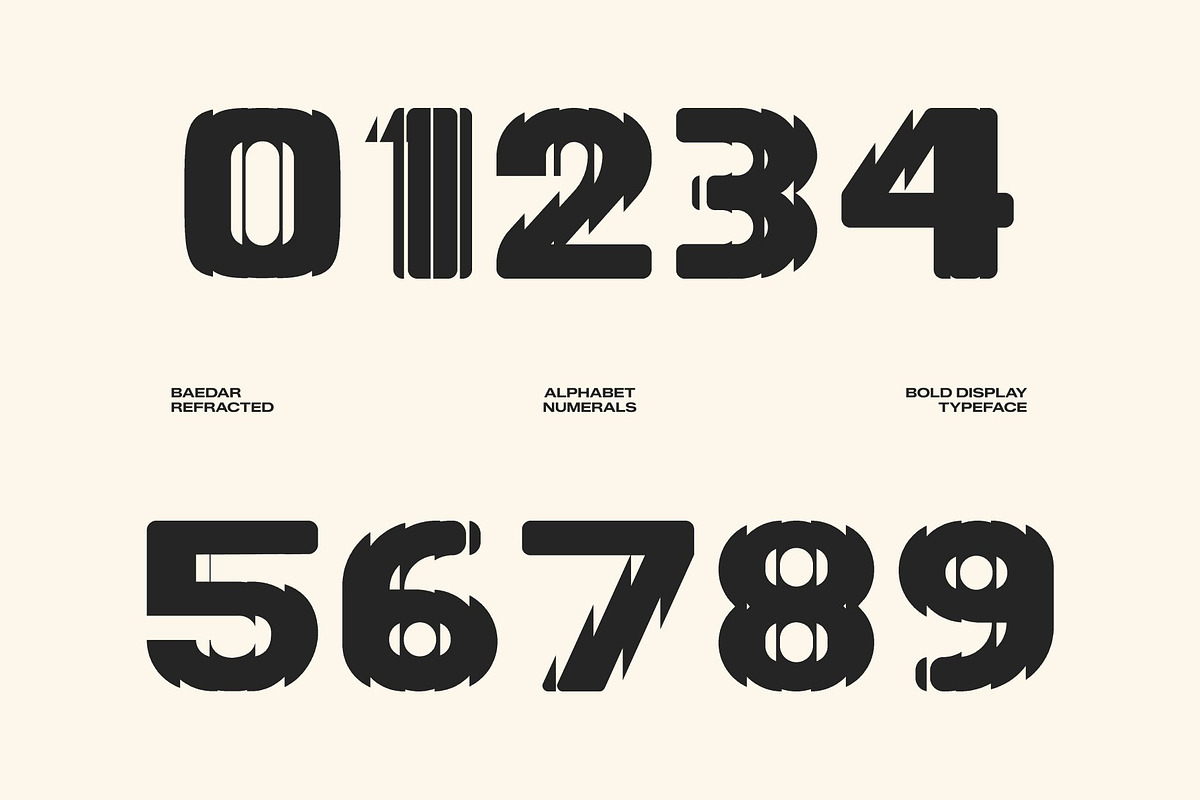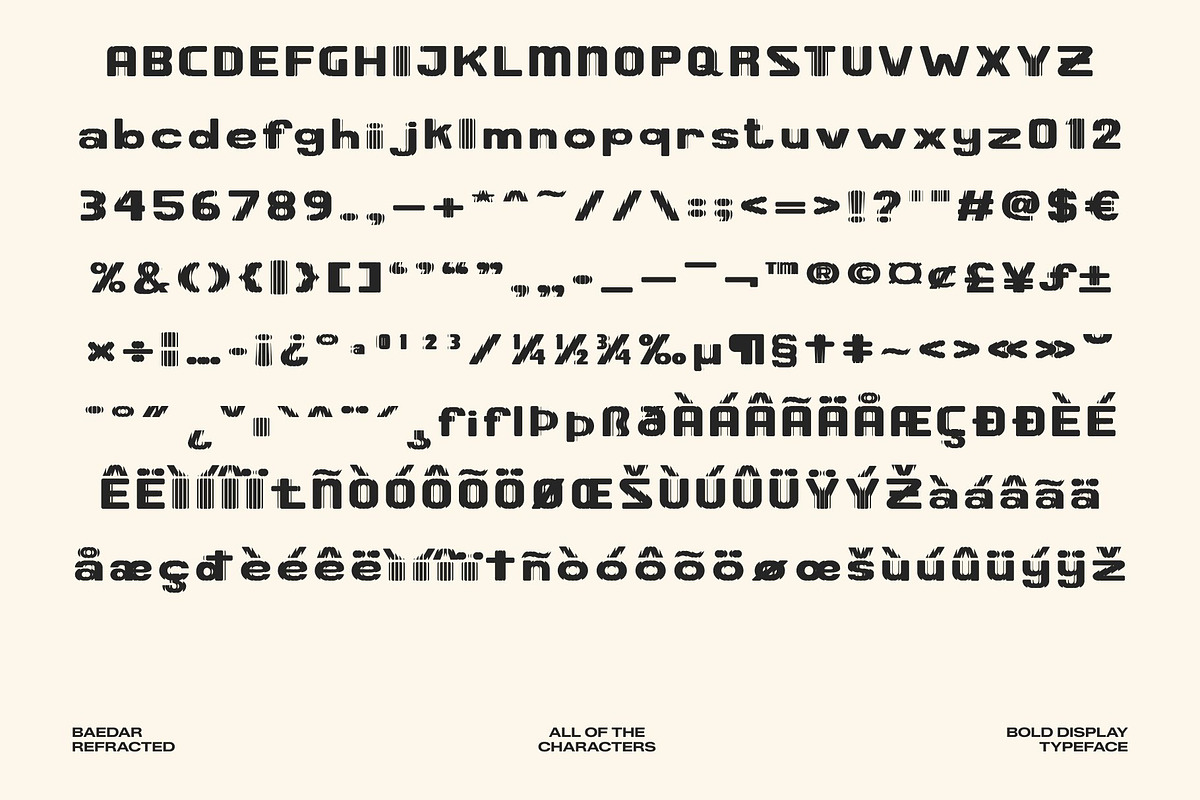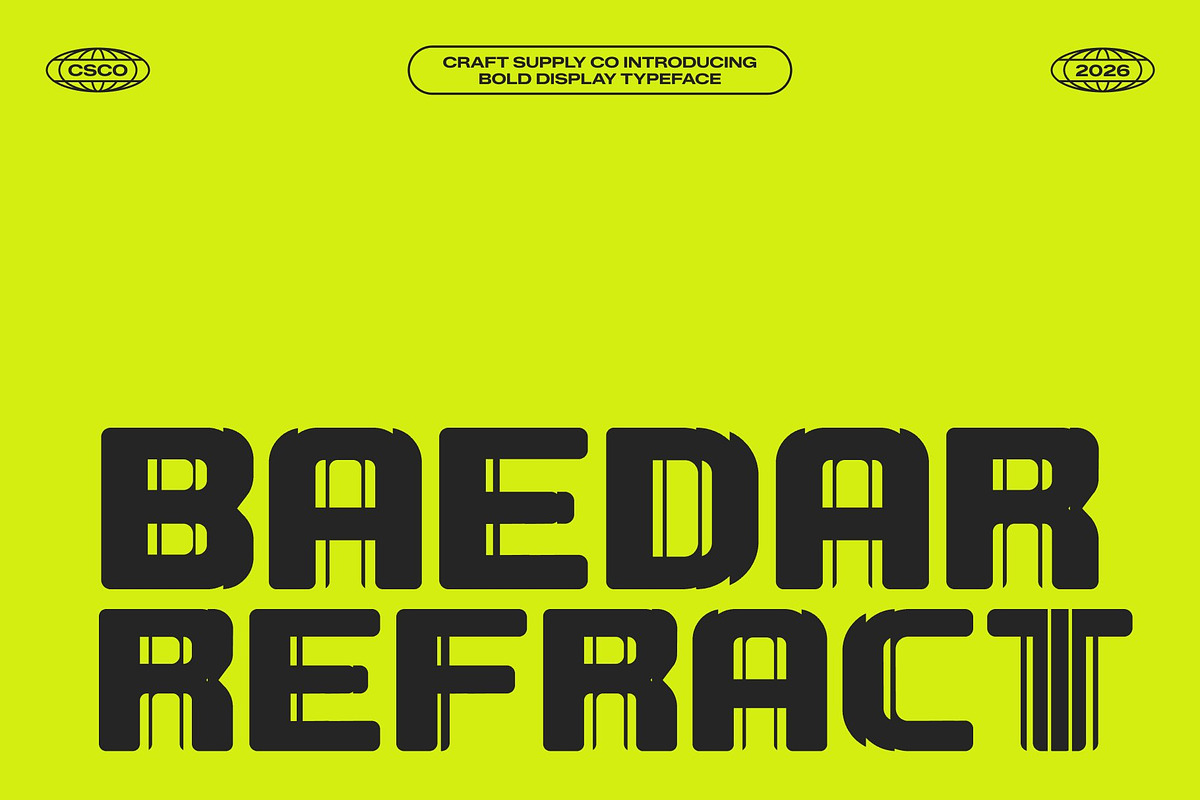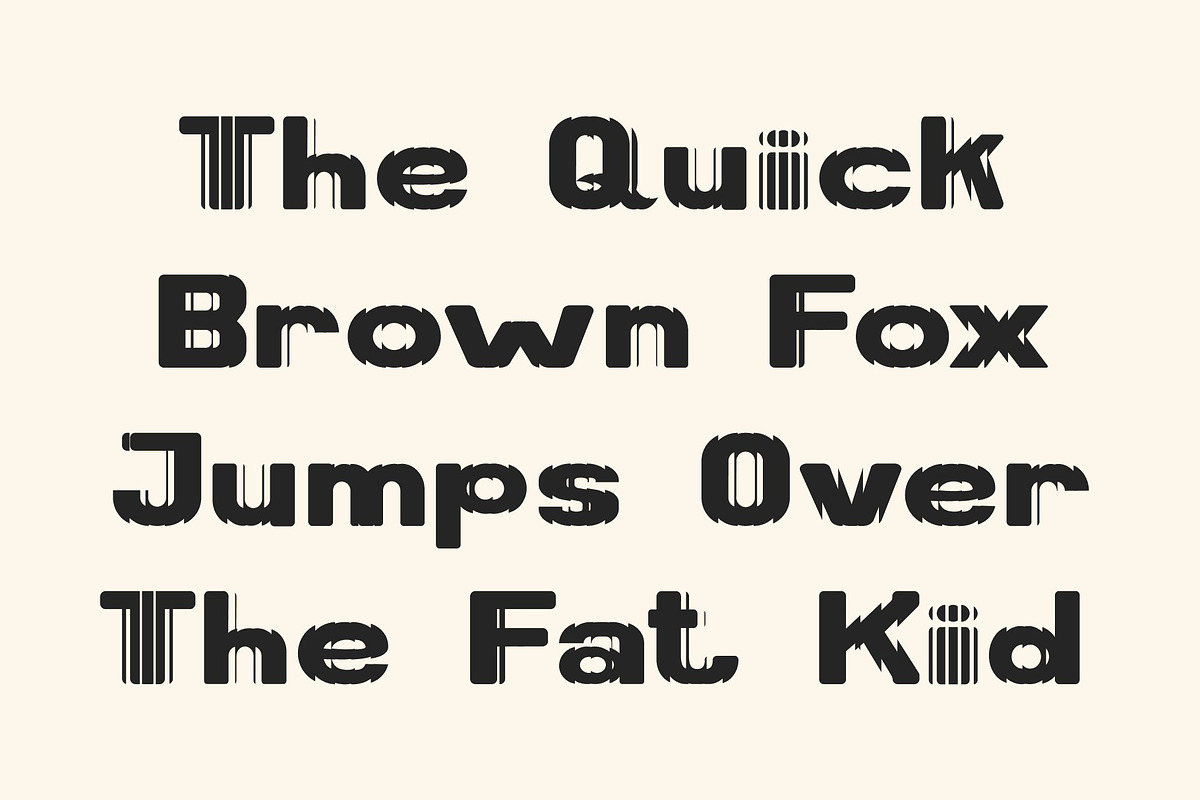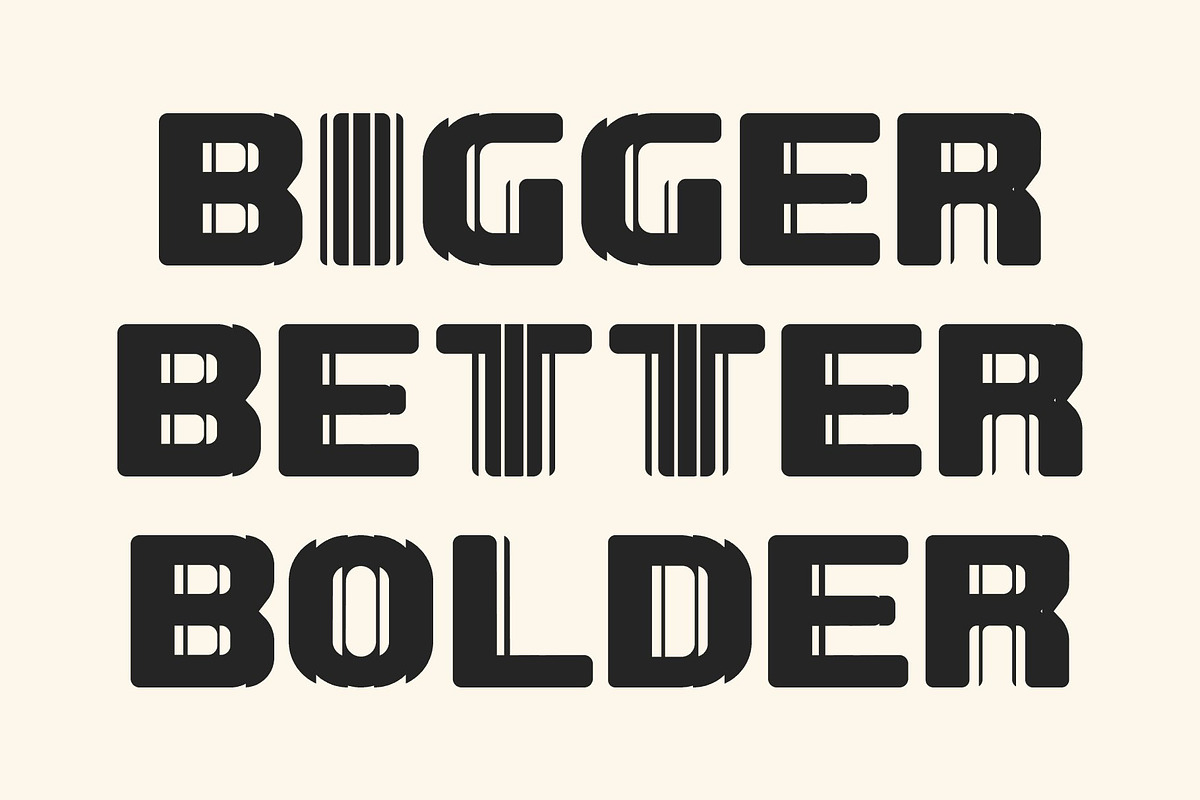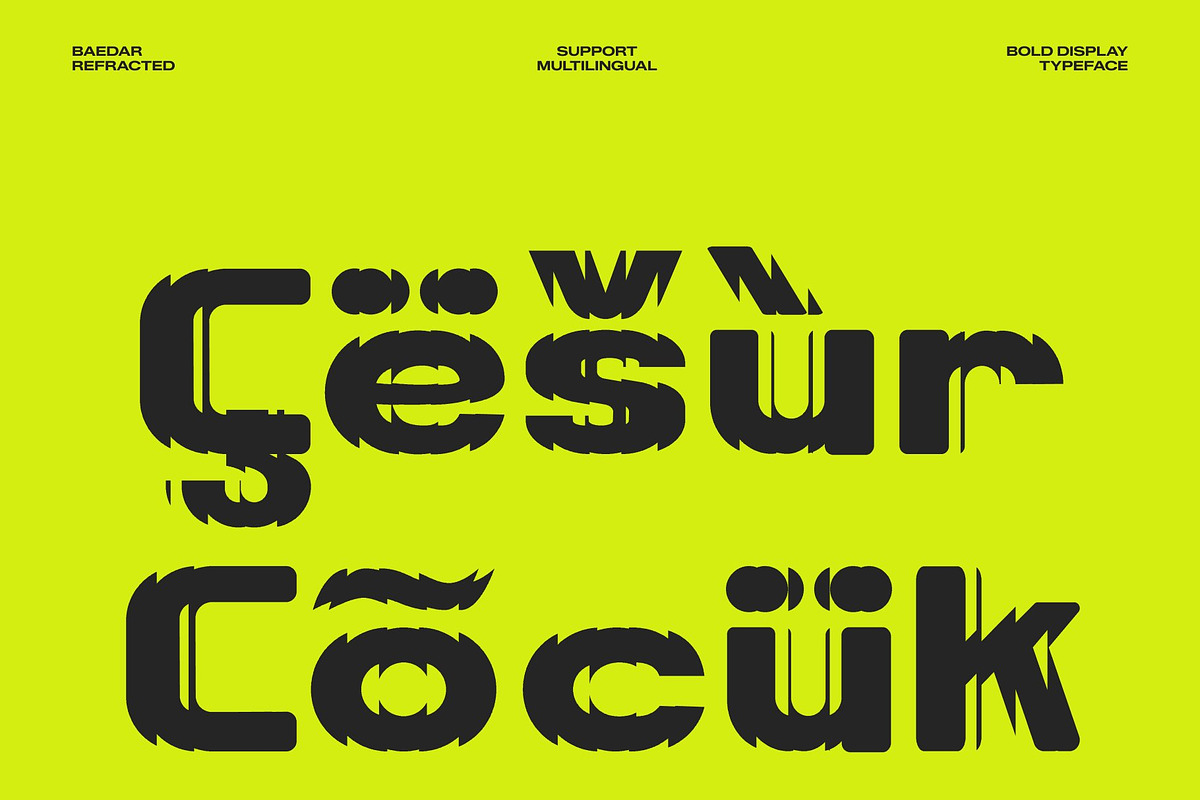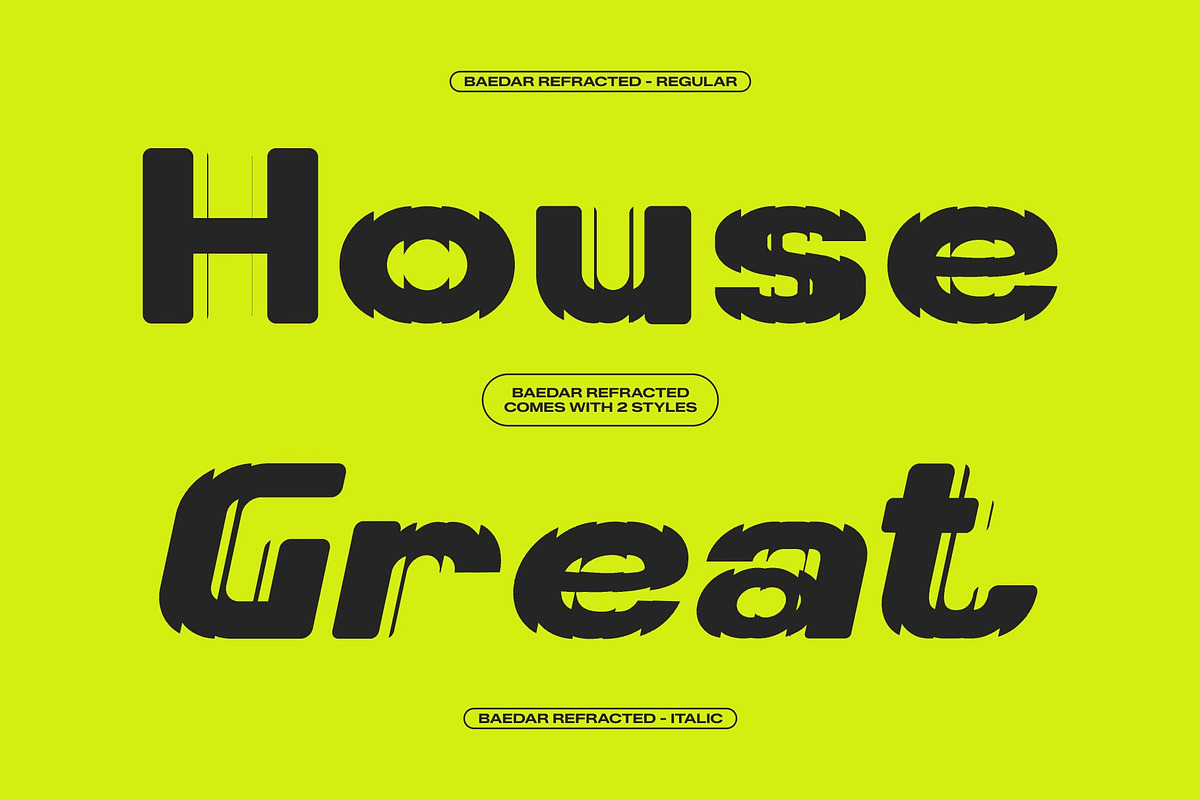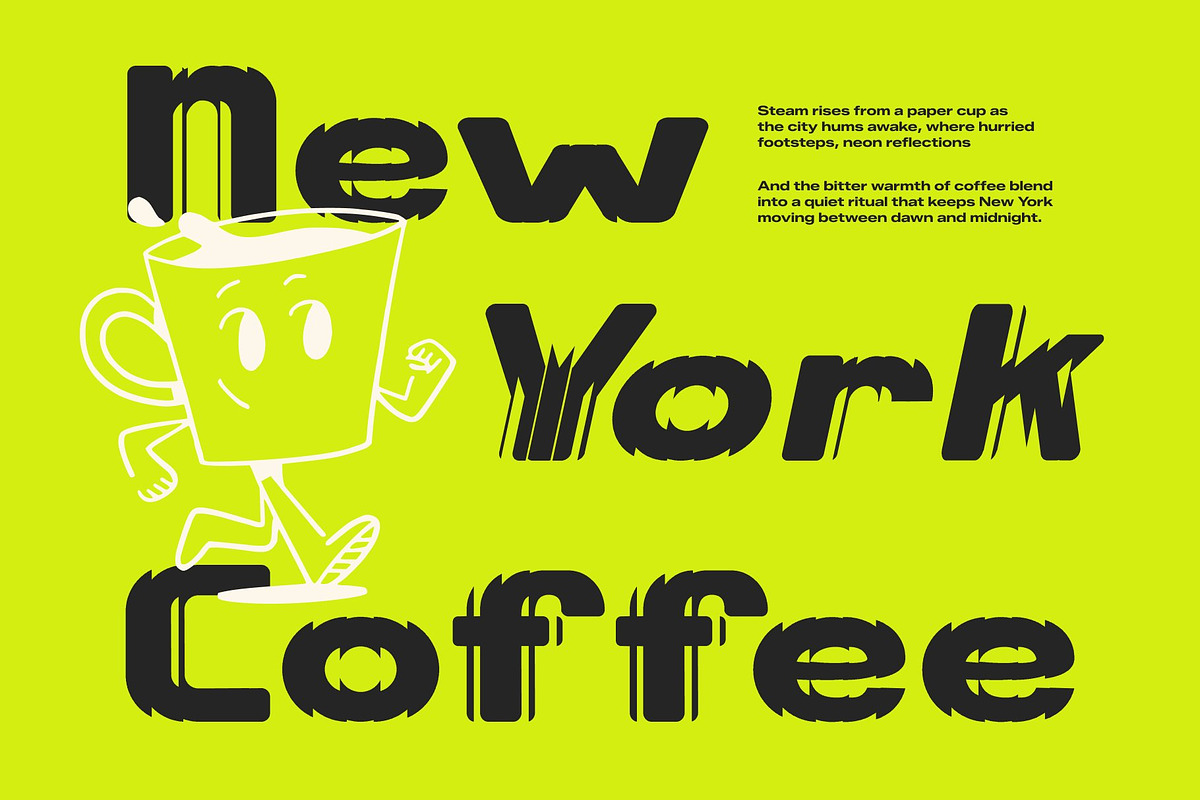
Baedar Refracted
Baedar Refracted – Bold Rounded Sans Serif Font: Where Dynamic Strength Meets Futuristic Refraction
Strong Rounded Forms with Energetic Presence This is a sans serif font distinguished by its bold rounded shapes and dynamic visual character. Its thick contemporary structure creates a confident and assertive appearance filled with energy, clarity, and modern personality. Every character feels impactful yet approachable, making the font perfect for designs that demand strong attention and vibrant visual presence.
Refracted Effect with Futuristic Fragmentation This font features glitch-inspired light refraction details that create fragmented cuts, geometric slices, and layered distortions across the letterforms. This futuristic effect introduces movement, digital depth, and experimental energy while preserving the font’s clean and elegant structure. The result is a visually immersive appearance that feels sleek, modern, and technologically inspired.
Modern Playfulness with Digital Futurism This font delivers a typographic identity that feels youthful, futuristic, and visually engaging. Its soft geometric forms combined with digital fragmentation evoke cyber aesthetics, entertainment visuals, electronic culture, and contemporary creative branding.
Perfect for Branding, Posters, and Entertainment Visuals Perfect for branding, entertainment design, posters, digital content, youth-oriented visual identities, social media graphics, streaming visuals, merchandise, and promotional materials. Its refracted rounded forms make it ideal for logos, headlines, event graphics, gaming visuals, and creative campaigns that seek a bold, clean, and futuristic appearance.
Baedar Refracted Regular
Baedar Refracted Italic